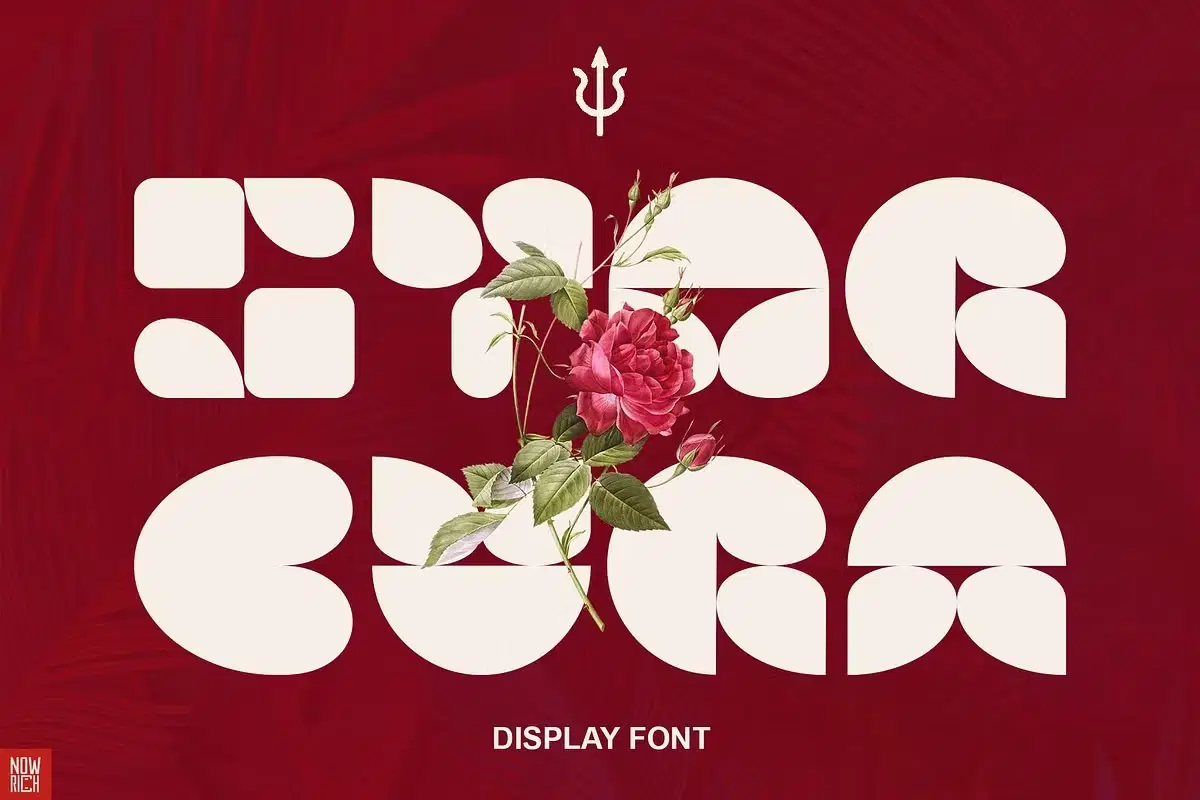
Introducing Starburn: a display font that transports you to sun-kissed beaches, swaying palm trees, and exotic destinations with every curve and edge. Inspired by tropical motifs, bikini-clad silhouettes, and vibrant Hawaiian shirts, this font captures the essence of paradise with a touch of personal design flair.
Unlock the potential of your projects with Starburn's captivating uppercase and lowercase characters. Whether you're crafting invitation cards, adorning posters, illustrating branding, or creating eye-catching logos, this font seamlessly blends tradition with innovation to make your designs stand out.
Embark on a journey where tradition meets innovation, and let Starburn elevate your graphic projects to new heights.